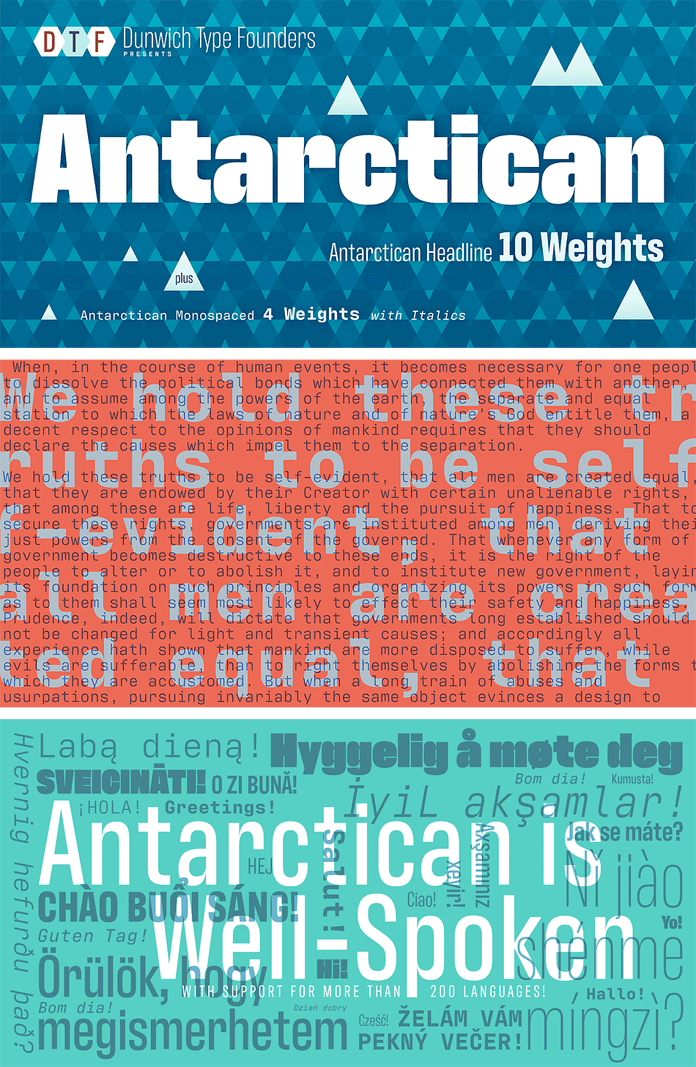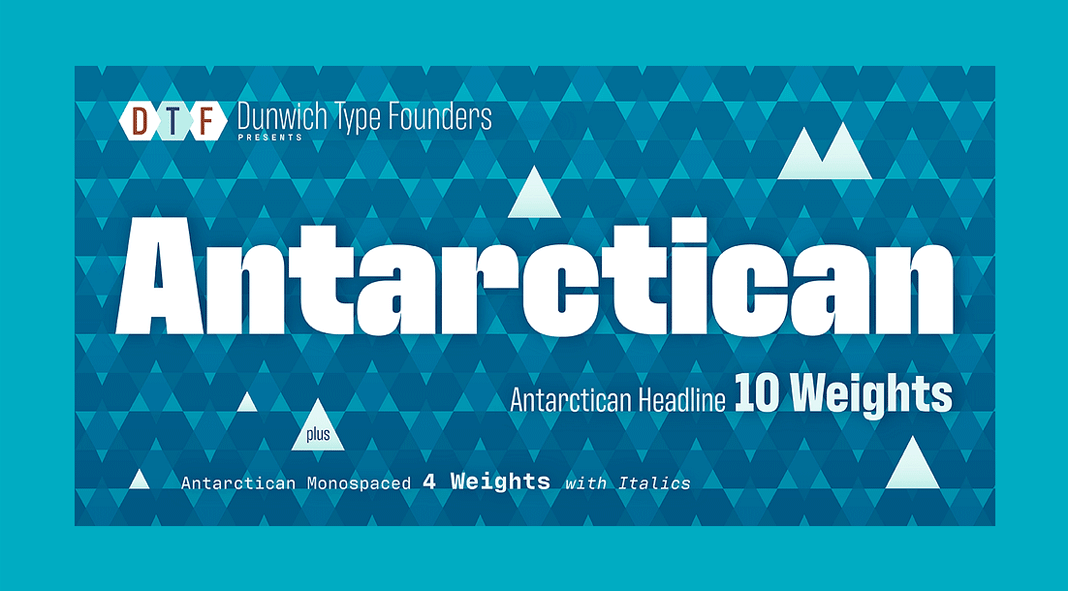
Created by type designer James Walker Puckett of Dunwich Type Founders, Antarctican is a display sans font family that comes with eighteen styles.
The Antarctican font family mixes ruler and compass geometry with American wood-type lettering. It includes deep notches, asymmetric contrast, and a tall x-height to improve legibility at small sizes while also making headlines more attention-grabbing when set large. All text styles are monospaced and headline styles are proportionally spaced; this allows text to be unconventional while still allowing headlines to weigh from thin to ultra-black.
With support for over 200 languages, the Antarctican font can be used by designers and readers all over the world. Its OpenType features include small caps, lining and superior/inferior numbers, prebuilt fractions in monospaced fonts, and arbitrary fractions in headline fonts, as well as ligatures. Just click on the following link if you want to have this typeface in your font library.